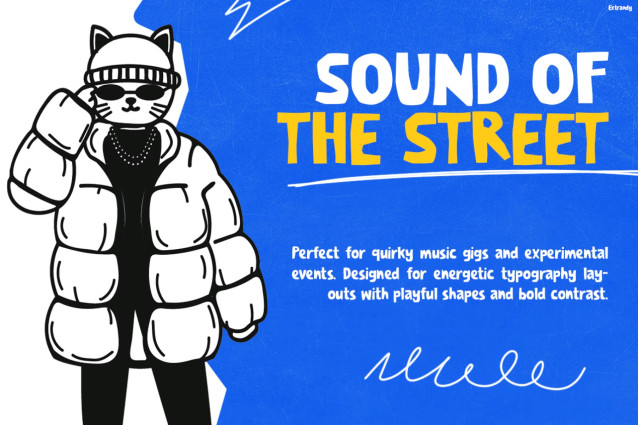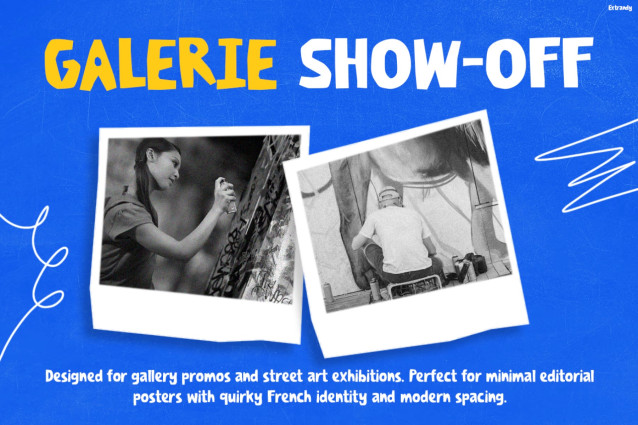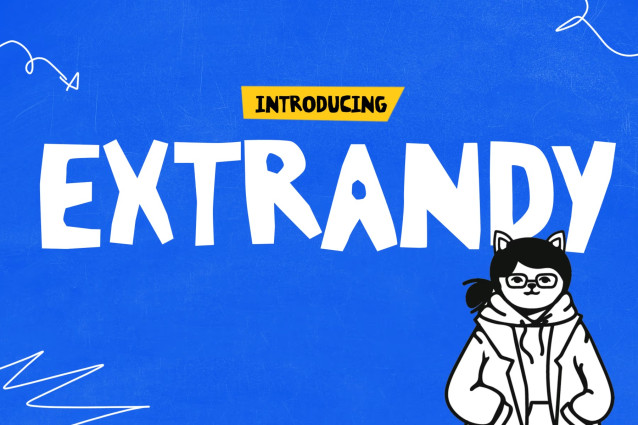
Extrandy Font
Extrandy – Street Style Kids Font with Bold Energy
Kids Font Extrandy bursts with playful urban energy; therefore, it instantly makes every design look bold and expressive. Moreover, its chunky letterforms and hand-drawn style create a trendy youthful vibe. As a result, your text stands out while staying clear and easy to read. In addition, the font mixes cartoon charm with modern street aesthetics perfectly. Not only that, but it also includes Multilingual Support (67 Languages) for wider global reach.
Kids Font Extrandy helps designers create lively and modern visuals; consequently, it works perfectly for playful branding projects. For example, it looks amazing on posters, merchandise, packaging, and social media graphics. Furthermore, its bold shapes add strong personality to headlines and promotional layouts. At the same time, the font keeps a clean structure for better readability.